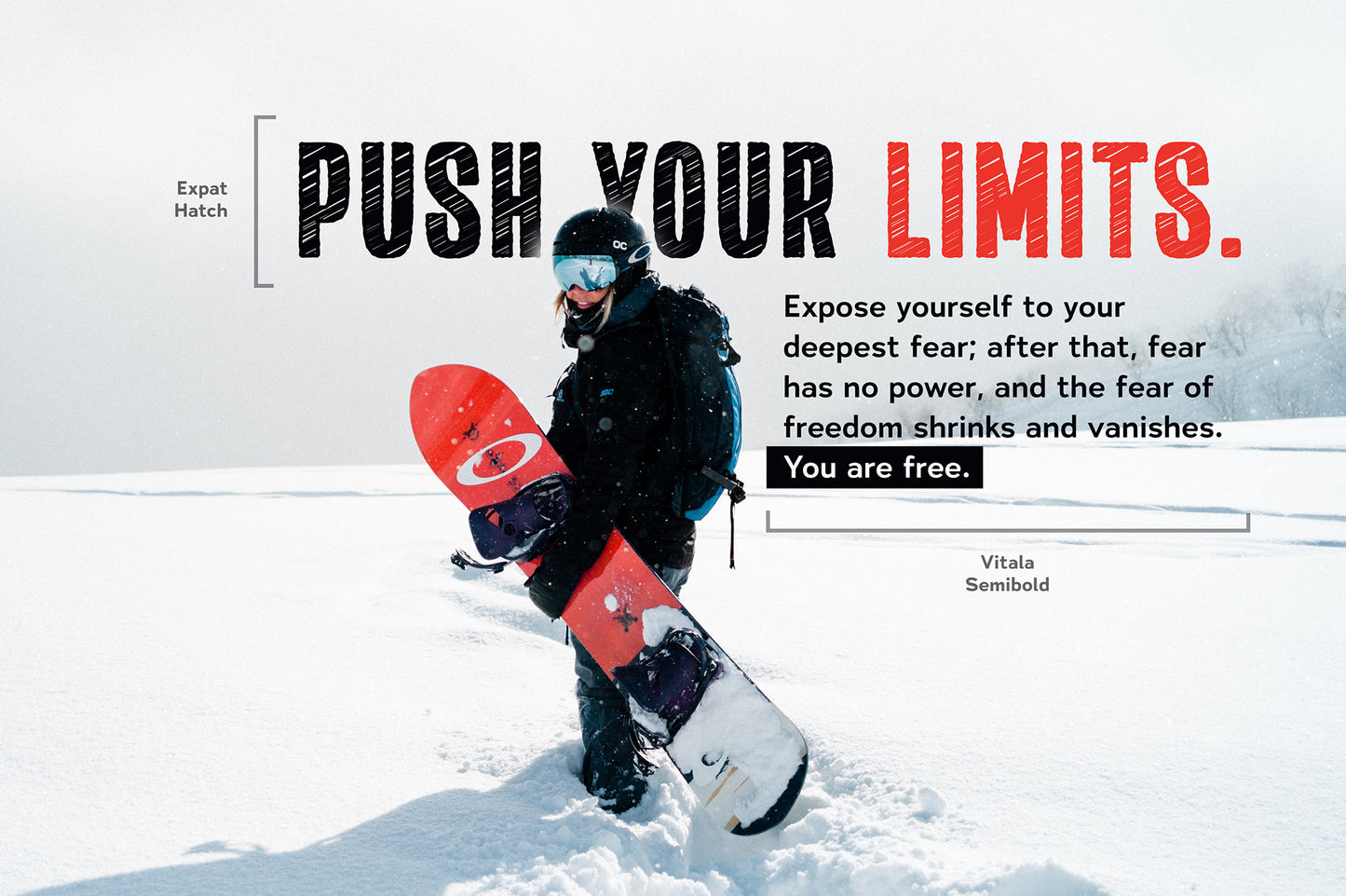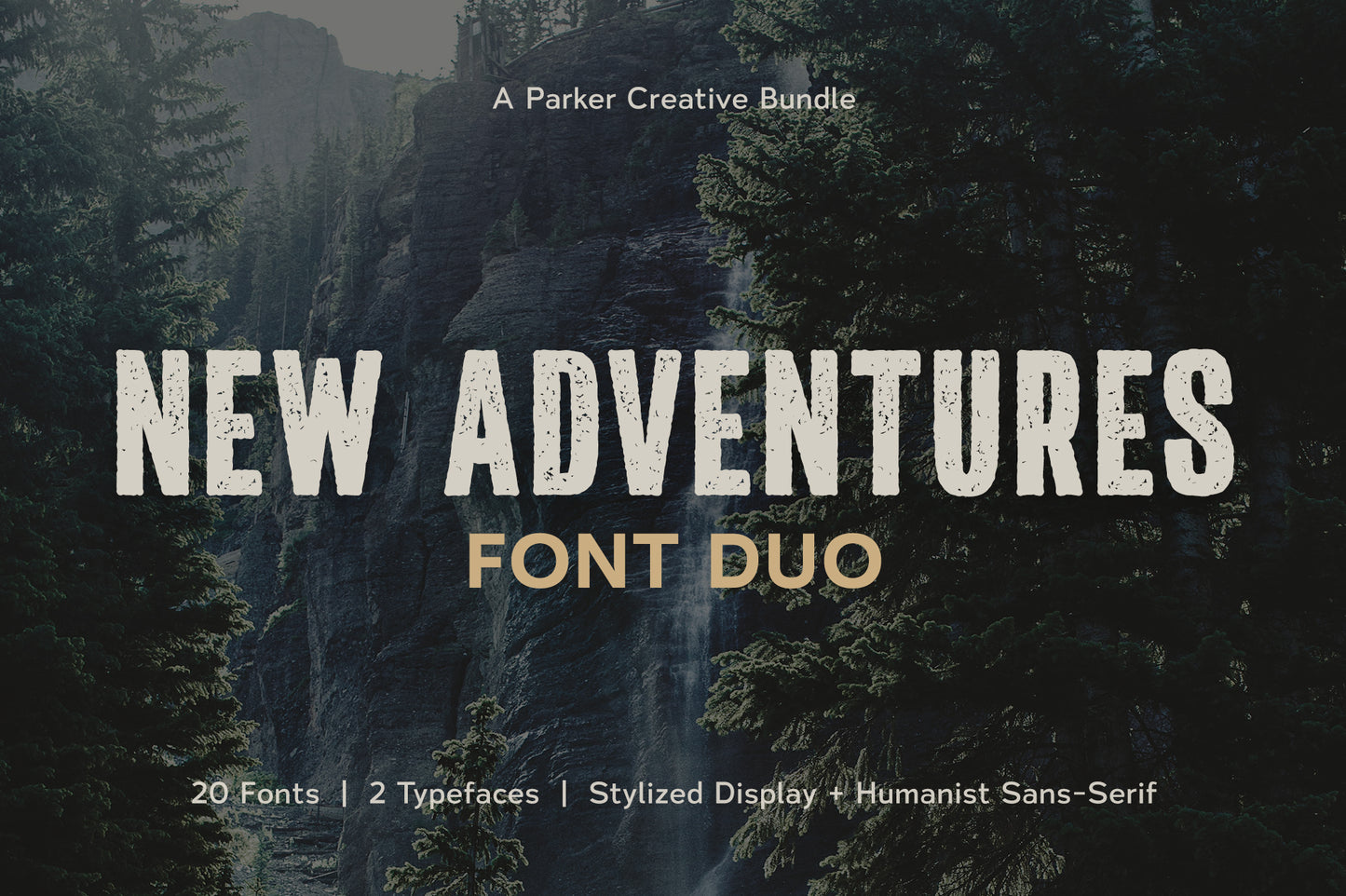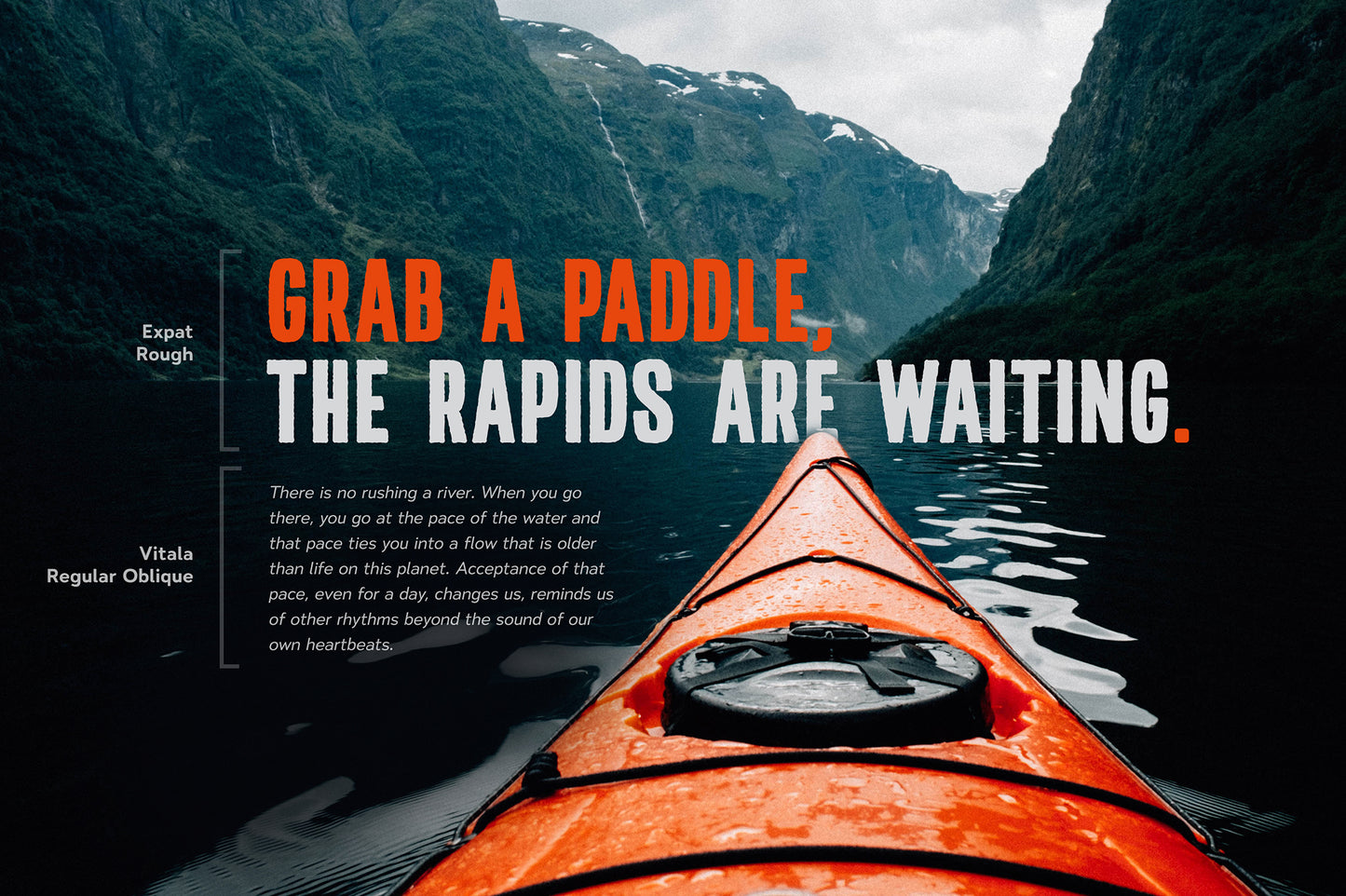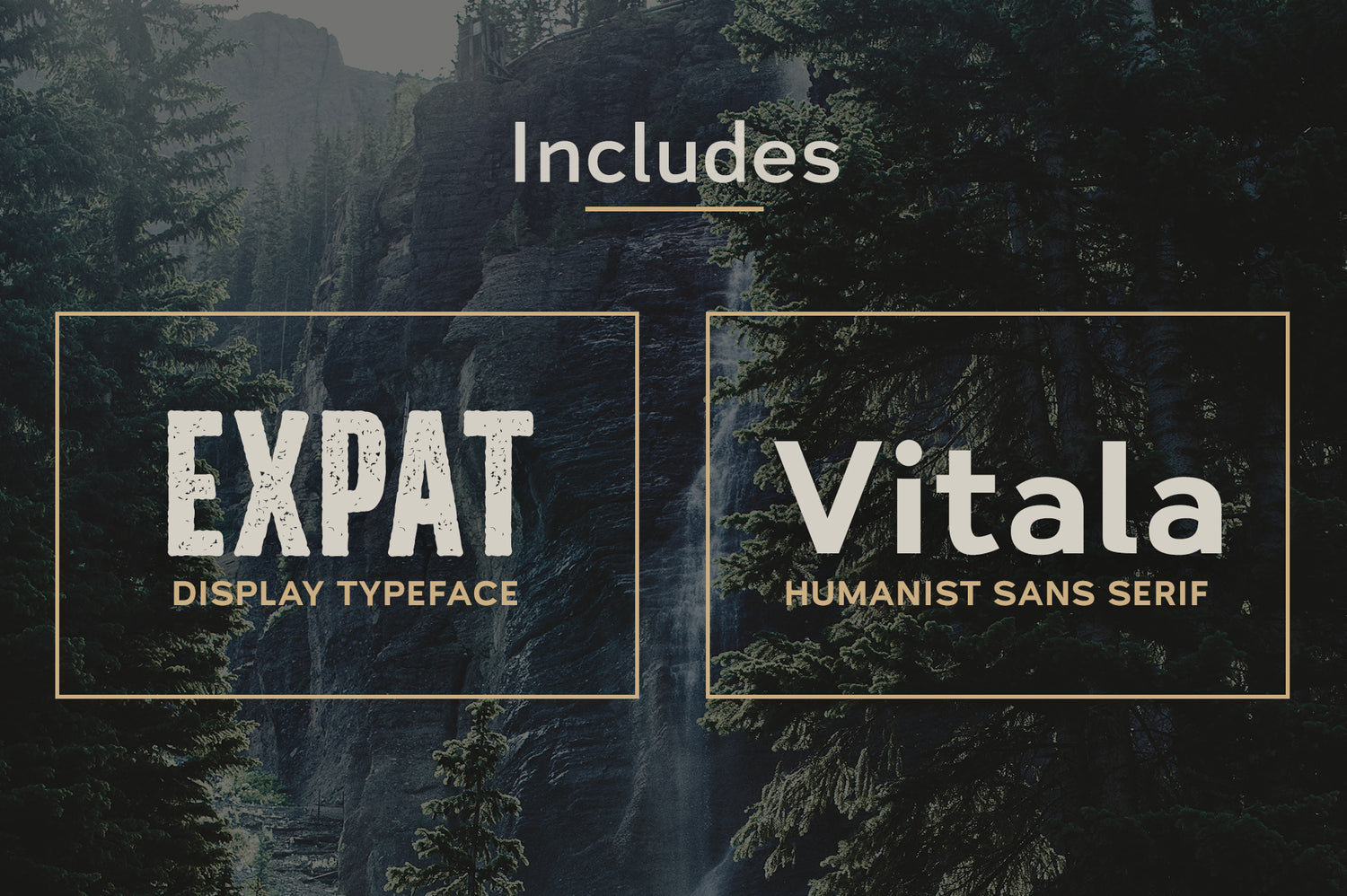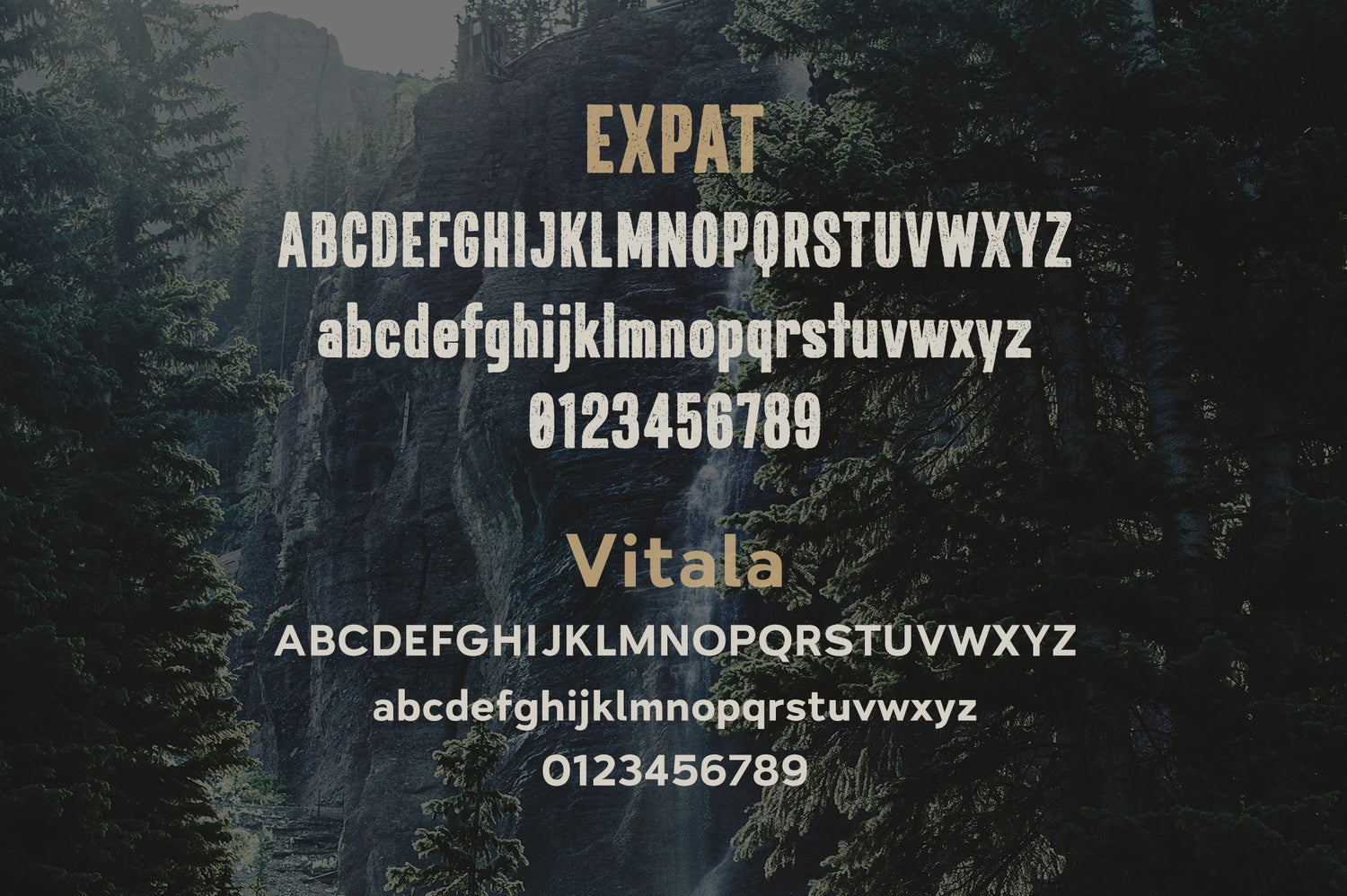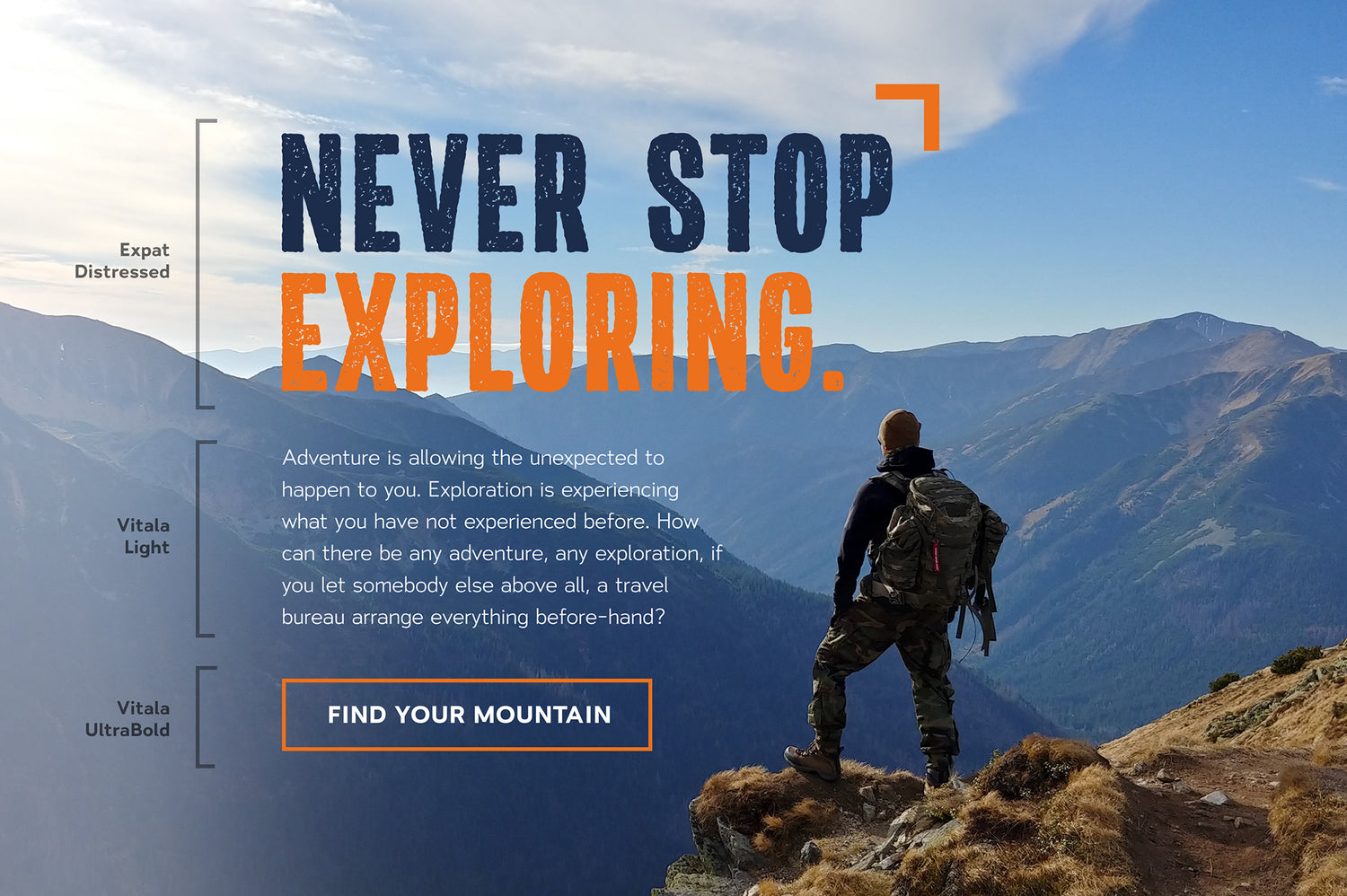
New Adventures Font Duo
Create exciting and rugged projects with this awesome font duo, exclusively from Parker Creative! New Adventures pairs a strong and rugged typeface with a beautifully versatile humanist sans-serif to create a totally unique look and feel.
Expat: Breathe life into your headings with this handcrafted, rugged design. It's tall and narrow characters create a big impression while randomized distressing and imperfect edges create a truly off-road aesthetic. Expat comes with 4 style variations including Standard, Rough, Distressed, and Hatch.
Vitala: Designed to be highly readable with a unique personality, Vitala achieves both with an incredibly balanced character set and subtle humanist characteristics. Style your body copy and subheadings however you like with this highly versatile typeface which comes with 8 weight variations + obliques.